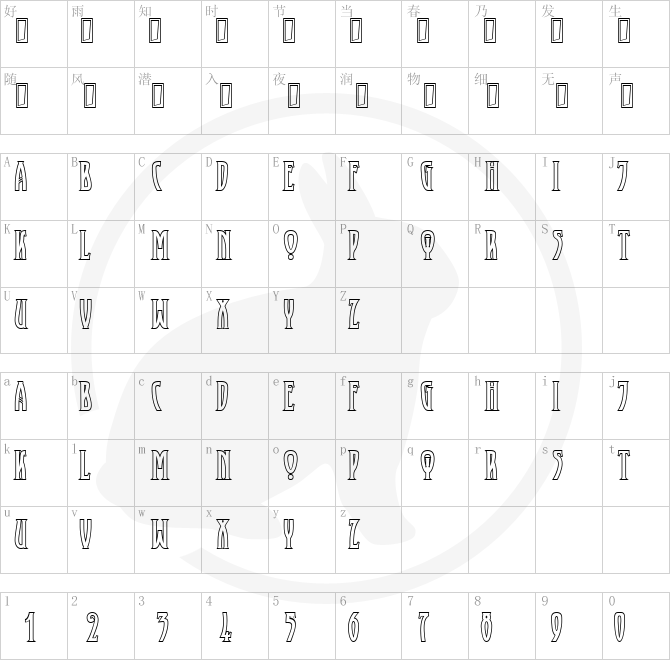
- Font Name:XAyax Outline
XAyax-Outline-copy-1-.ttf is a very beautiful artistic font, XAyax-Outline-copy-1-.ttf is widely used in the design and printing of various books and pictures,XAyax-Outline-copy-1-.ttf has a strong visual impact,XAyax-Outline-copy-1-.ttf is a commonly used font in newspapers, magazines and books, and is used in posters, e-commerce Poster design, store design, logo design, font design and other fields.XAyax-Outline-copy-1-.